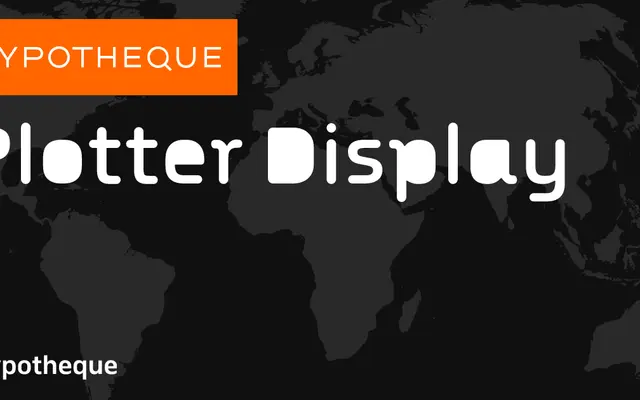
Plotter Display
A layered display type system from Typotheque built around chromatic overprinting, with city-named colour layers and stencil and mono subfamilies extending the system's range.
The display cut sits at the top of a wider Plotter system that spans text weights, stencil variants and a monospaced subfamily, all sharing a common structural logic. The Bold comes in four named layers — Amsterdam, Bengaluru, Copenhagen, Damascus and Edinburgh — intended for chromatic overprinting where each layer contributes a separate colour pass. The stencil and mono offshoots broaden the system's application from display headlines through to technical and screen-oriented uses.
Plotter Display is a layered display type system with named city-variant layers designed for chromatic printing effects, placing it firmly in the display category with a highly modular, system-based subcategory.